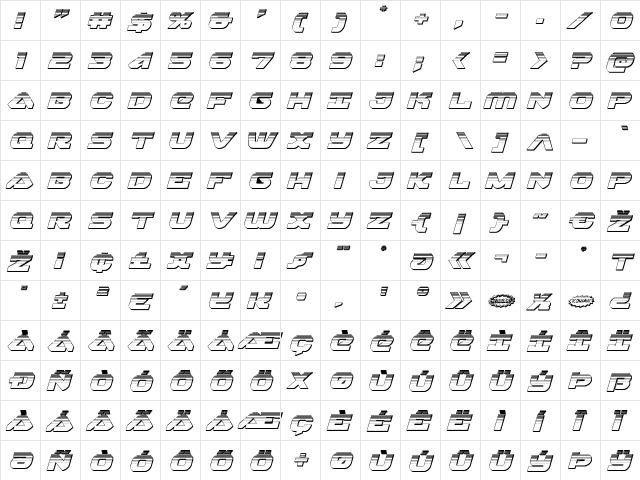
Skyhawk Platinum Italic Italic
Design Context for Skyhawk Platinum Italic Typeface
Skyhawk Platinum Italic is a composed and adaptable typeface that performs quietly and consistently across a wide range of design contexts. The slanted form adds forward momentum and visual energy.
Pro Tip: Try Skyhawk Platinum Italic for annotation and caption copy alongside an upright companion — the contrast in angle creates a dynamic but ordered typographic system.